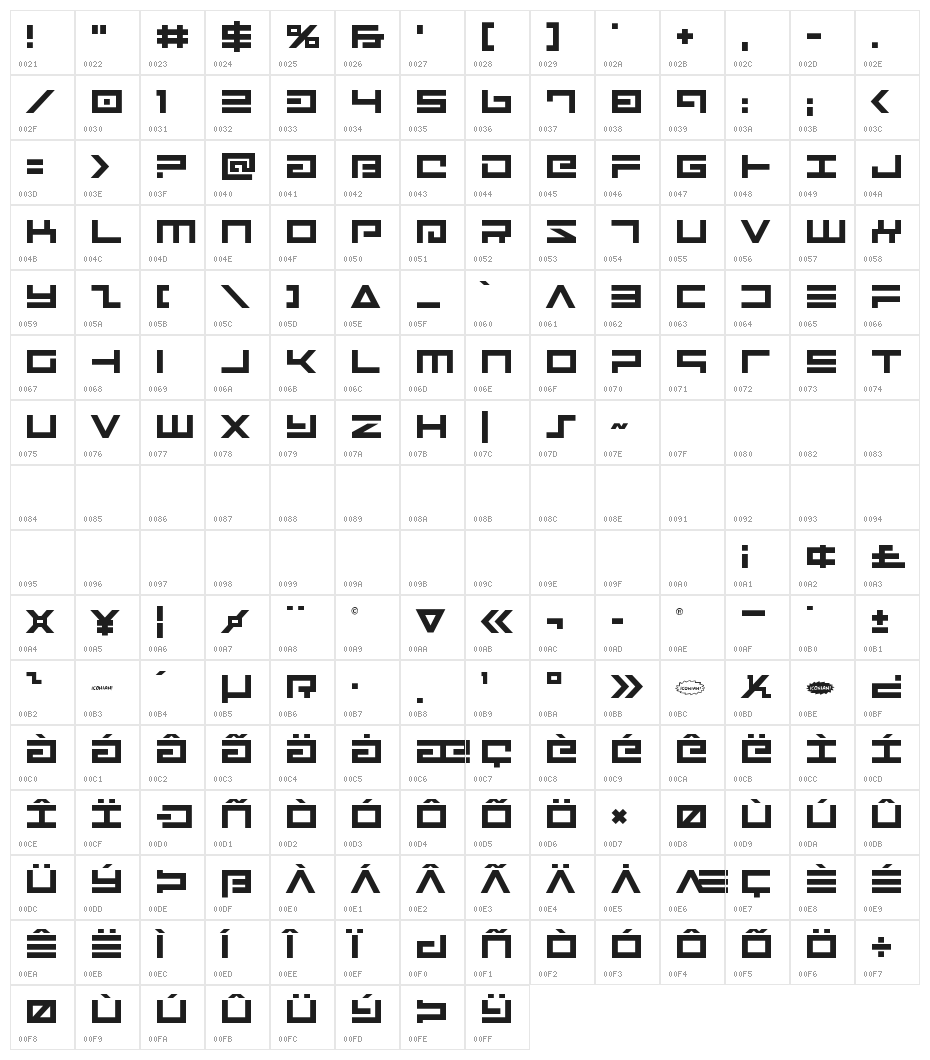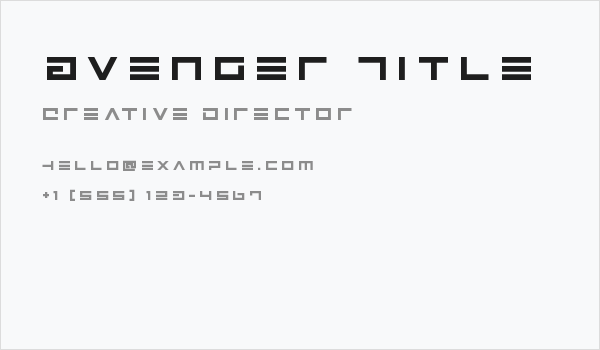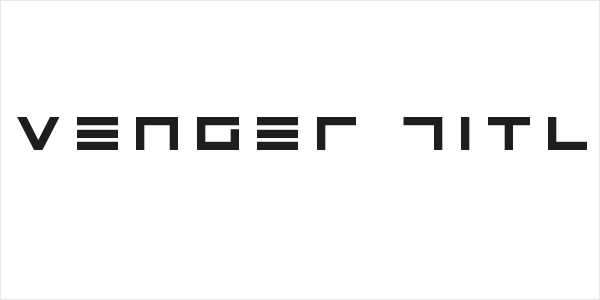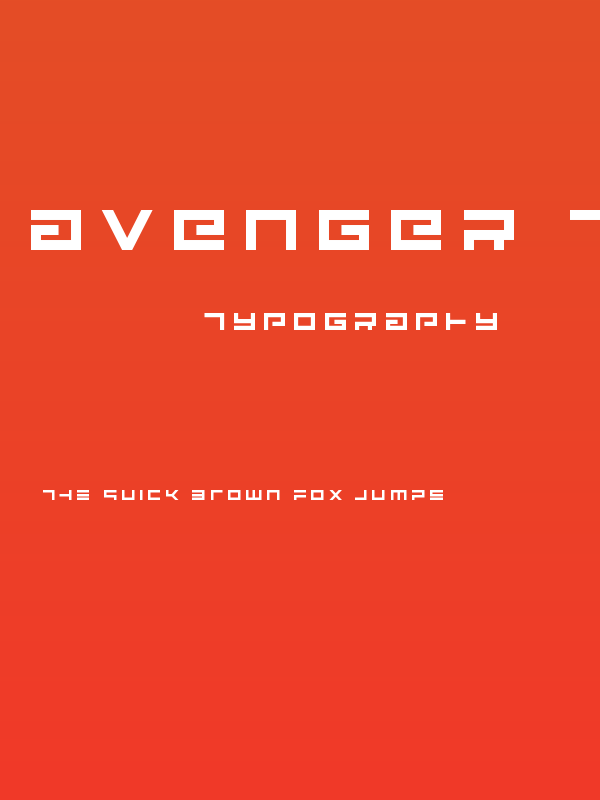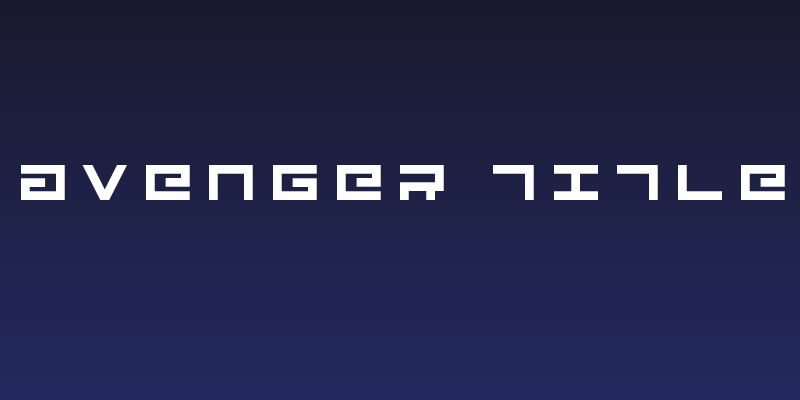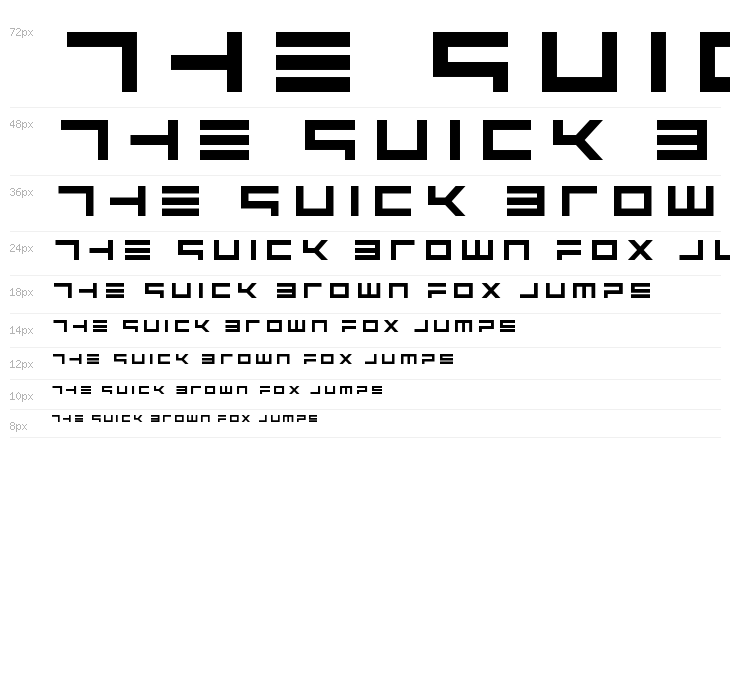
Avenger Title Font
Avenger Title Description
This font features a bold, geometric design with a futuristic and angular aesthetic. Each character is constructed with sharp edges and straight lines, creating a cohesive and modern appearance. The uppercase and lowercase letters maintain a consistent style, with a blocky and uniform structure that emphasizes clarity and readability. Numbers and special characters follow the same design principles, ensuring a seamless integration across different text elements. The font's distinct style makes it suitable for projects that require a strong visual impact.